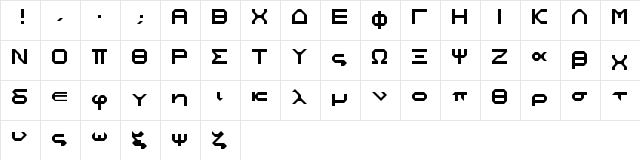
Kalos Regular
Design Context for Kalos Typeface
Kalos is a composed and adaptable typeface that performs quietly and consistently across a wide range of design contexts.